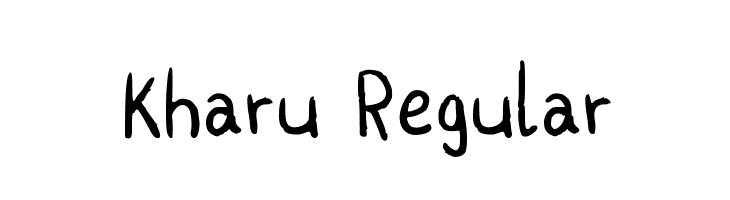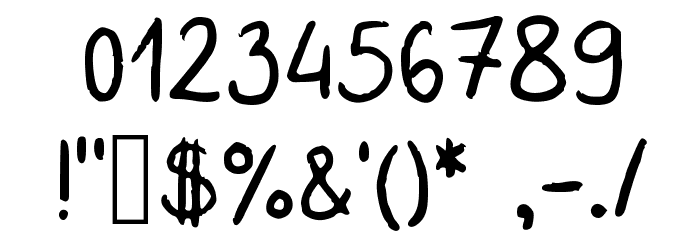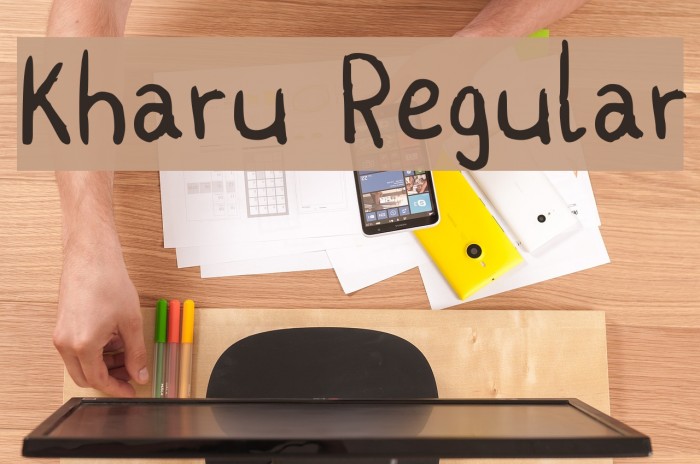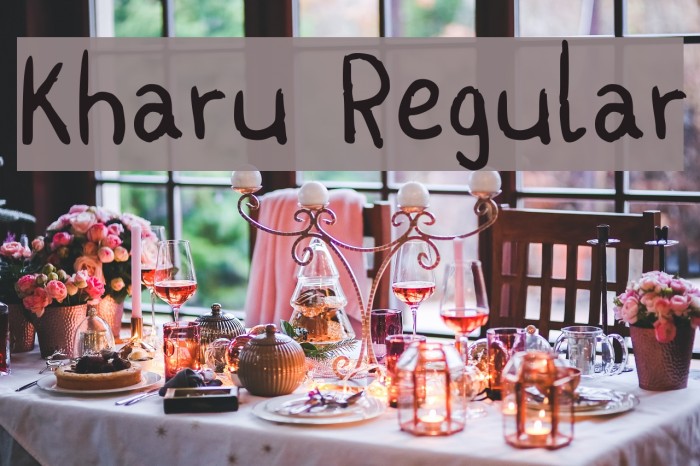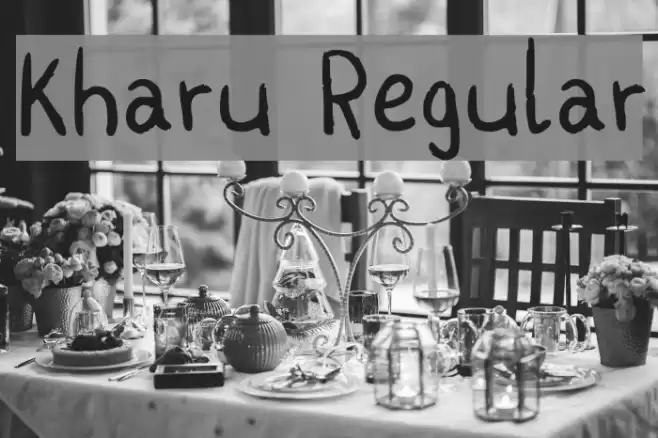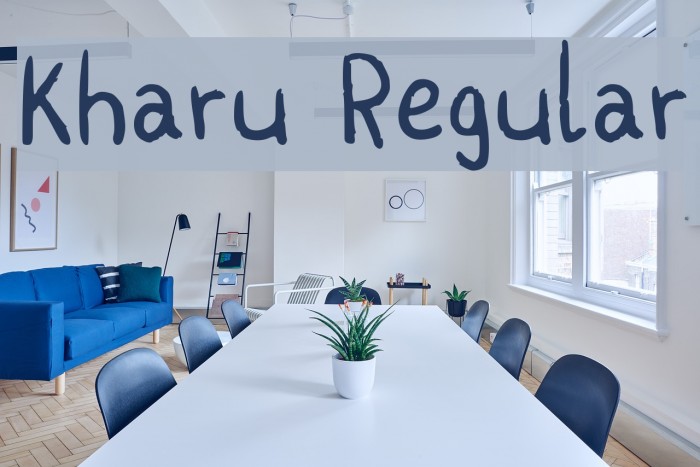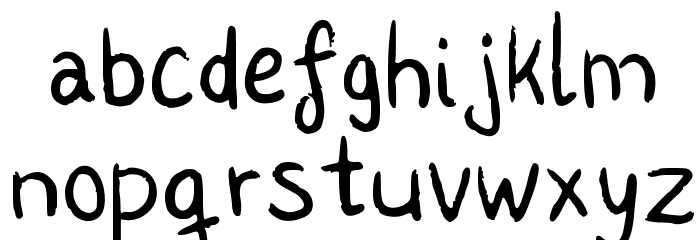
Kharu Regular Font
Kharu Regular Description
This font features a playful and casual handwritten style, characterized by its uneven strokes and organic flow. The letters have a slightly irregular baseline, adding to the informal and approachable feel. The uppercase and lowercase letters maintain a consistent style, with rounded edges and a slight slant that suggests movement. The numerals and special characters are crafted with the same whimsical touch, ensuring a cohesive look across all text. This font is perfect for projects that require a personal and friendly tone, such as invitations, greeting cards, or creative branding materials. Its unique style makes it stand out while remaining legible and versatile.
| Proposed Projects | Ideal for invitations, greeting cards, creative branding, and personal projects. |